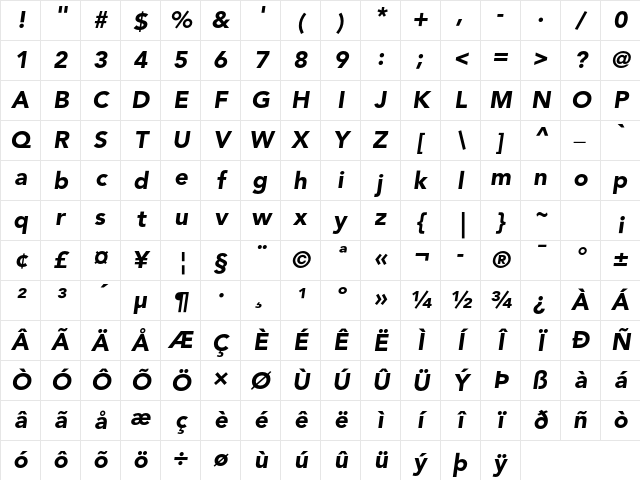
Avenir LT W04 95 Bold Italic
Foundry: Monotype GmbH
Design Context for Avenir LT W04 95
Avenir LT W04 95 is a composed and adaptable typeface that performs quietly and consistently across a wide range of design contexts. The slanted form adds forward momentum and visual energy. Its bold stroke weight gives it real presence on the page.
Pro Tip: Use Avenir LT W04 95 for emphasis, pull quotes, and subheadings where its slanted energy can add rhythm to the layout.
Who designed the Avenir LT W04 95 Bold Italic font?